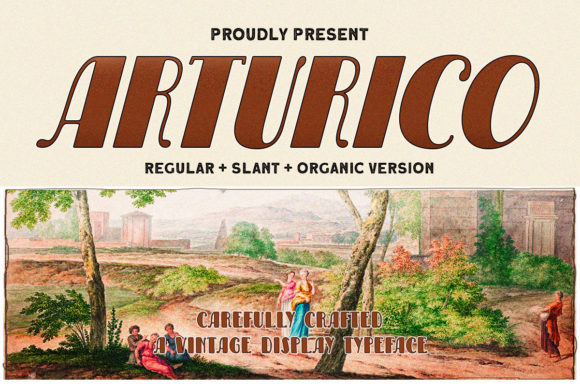
Introducing Arturico Font: A Timeless Classy Display Font
Arturico Font is a high contrast display font that exudes a classy and retro look, drawing inspiration from the iconic designs of the 1960s and 1970s. This stylish font is perfect for a wide range of formal applications, including invitations, labels, logos, magazine covers, books, greeting cards, wedding cards, packaging, fashion, makeup, stationery, novels, and any type of advertising purpose.
The Retro Inspiration Behind Arturico Font
The 1960s and 1970s were a time of great creativity and experimentation in the world of design. The era saw the rise of iconic typography, with fonts that were bold, expressive, and highly decorative. Arturico Font pays homage to this bygone era, capturing the essence of retro style with its high contrast lines, elegant curves, and sophisticated flair.
The font’s design is characterized by its dramatic contrast between thick and thin lines, which gives it a sense of luxury and refinement. The letters are carefully crafted to evoke a sense of nostalgia, while still feeling modern and fresh. Whether used for headlines, titles, or short paragraphs of text, Arturico Font is sure to add a touch of class and sophistication to any design.
Key Features of Arturico Font
- High Contrast Lines: Arturico Font features high contrast lines that give it a dramatic and elegant appearance.
- Retro Inspiration: The font draws inspiration from the iconic designs of the 1960s and 1970s, making it perfect for designers looking for a retro touch.
- Classy and Sophisticated: Arturico Font exudes a sense of luxury and refinement, making it ideal for formal applications.
- Versatile: The font can be used for a wide range of design projects, from invitations and labels to magazine covers and packaging.
Use Cases for Arturico Font
Arturico Font is an incredibly versatile font that can be used for a wide range of design projects. Here are some of the most popular use cases:
- Invitations: Arturico Font is perfect for formal invitations, such as wedding invitations, birthday invitations, and graduation invitations.
- Labels and Logos: The font’s elegant and sophisticated design makes it ideal for labels and logos, particularly for luxury brands.
- Magazine Covers: Arturico Font can add a touch of class and sophistication to magazine covers, making it perfect for fashion, lifestyle, and entertainment publications.
- Packaging: The font’s retro inspiration and elegant design make it ideal for packaging design, particularly for luxury products.
- Fashion and Beauty: Arturico Font is perfect for fashion and beauty brands looking to add a touch of sophistication and elegance to their branding.
Why Choose Arturico Font?
Arturico Font is an excellent choice for designers looking for a high-quality, elegant, and sophisticated font. Here are some reasons why:
- Unique Design: Arturico Font has a unique design that sets it apart from other fonts on the market.
- High-Quality: The font is crafted with attention to detail, ensuring that it looks great in any design.
- Versatile: Arturico Font can be used for a wide range of design projects, making it a great addition to any designer’s font library.
- Easy to Read: Despite its elegant design, Arturico Font is easy to read, making it perfect for body text and headlines.
Tips for Using Arturico Font
Here are some tips for using Arturico Font effectively:
- Use it Sparingly: Arturico Font is a bold and elegant font, so use it sparingly to avoid overwhelming the design.
- Pair it with Other Fonts: Arturico Font can be paired with other fonts to create a unique and interesting design.
- Experiment with Colors: The font looks great in a variety of colors, so experiment with different colors to find the one that works best for your design.
- Pay Attention to Kerning: As with any font, pay attention to kerning to ensure that the text looks balanced and visually appealing.
Arturico Font is a high-quality, elegant, and sophisticated font that is perfect for designers looking to add a touch of class and refinement to their designs. With its retro inspiration, high contrast lines, and versatile design, Arturico Font is an excellent choice for a wide range of design projects. Whether used for invitations, labels, logos, magazine covers, or packaging, Arturico Font is sure to make a lasting impression.